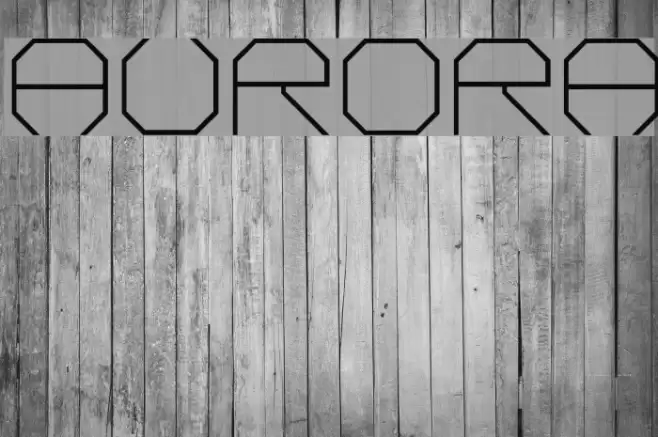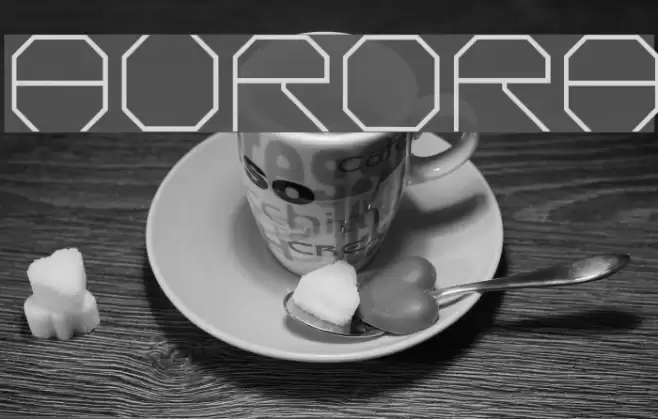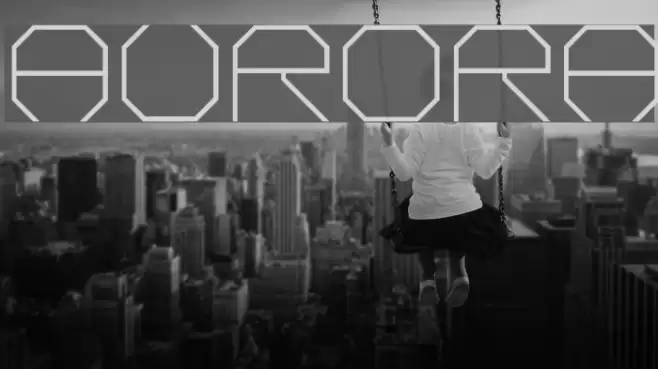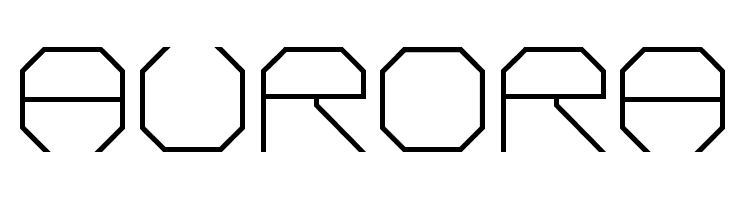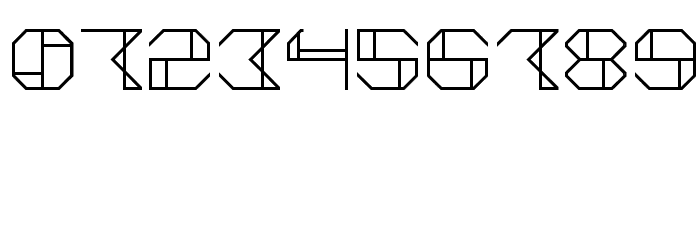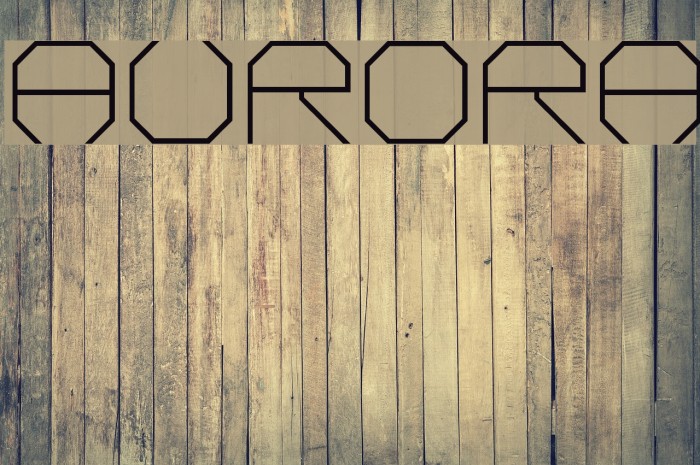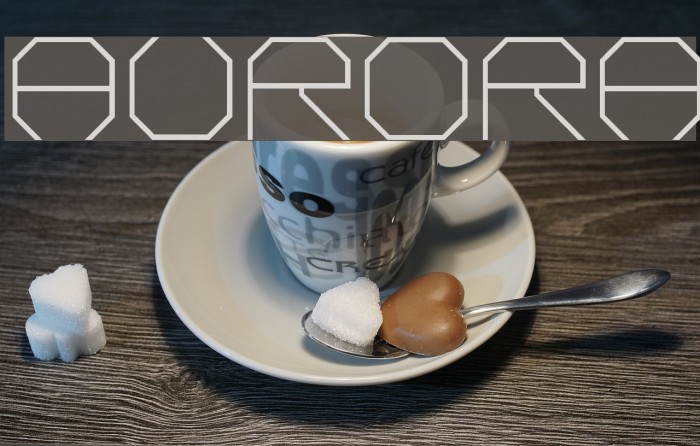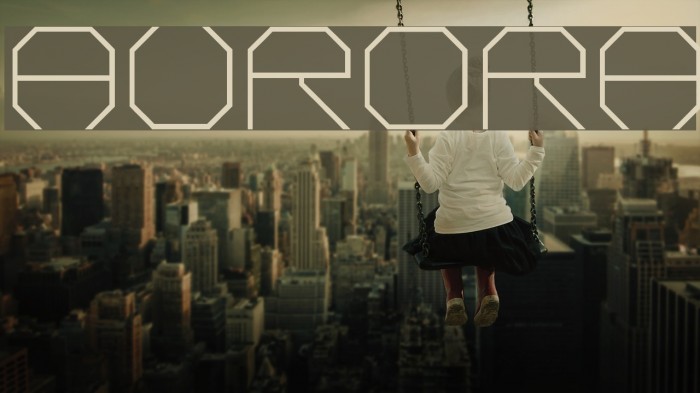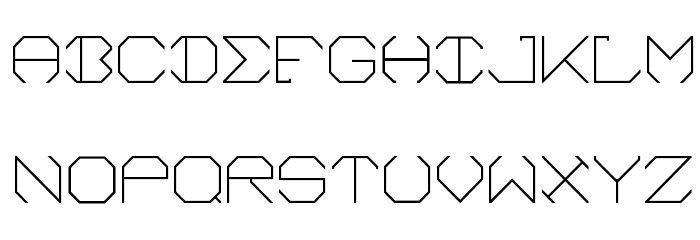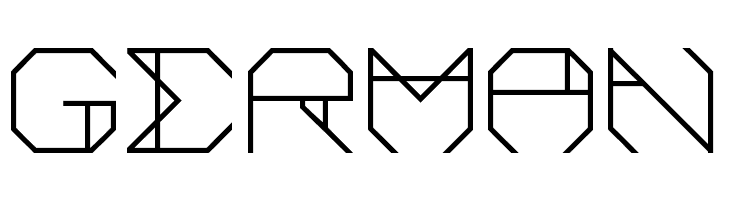
aurora Font
aurora Description
This font features a geometric and angular design, characterized by its use of straight lines and sharp angles. Each character is constructed with a series of interconnected lines, creating a futuristic and technical appearance. The uppercase and lowercase letters maintain a consistent style, with a focus on symmetry and balance. Numbers and special characters follow the same design principles, ensuring a cohesive look across all glyphs. The font's unique structure makes it stand out, offering a modern and edgy aesthetic that is both eye-catching and distinctive.
A geometric, angular font with a futuristic and technical design from Futuristic fonts.
- Proposed Projects: Ideal for technology branding, sci-fi themed projects, modern art displays, and digital interfaces.